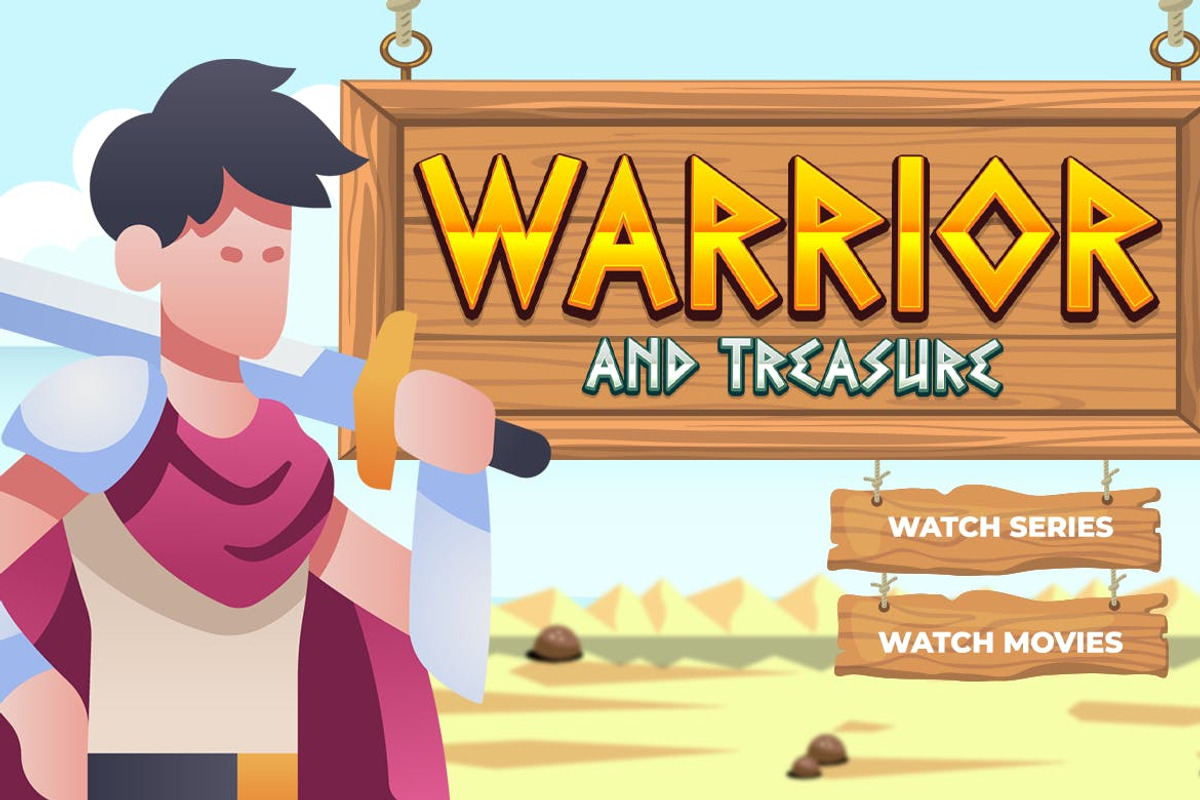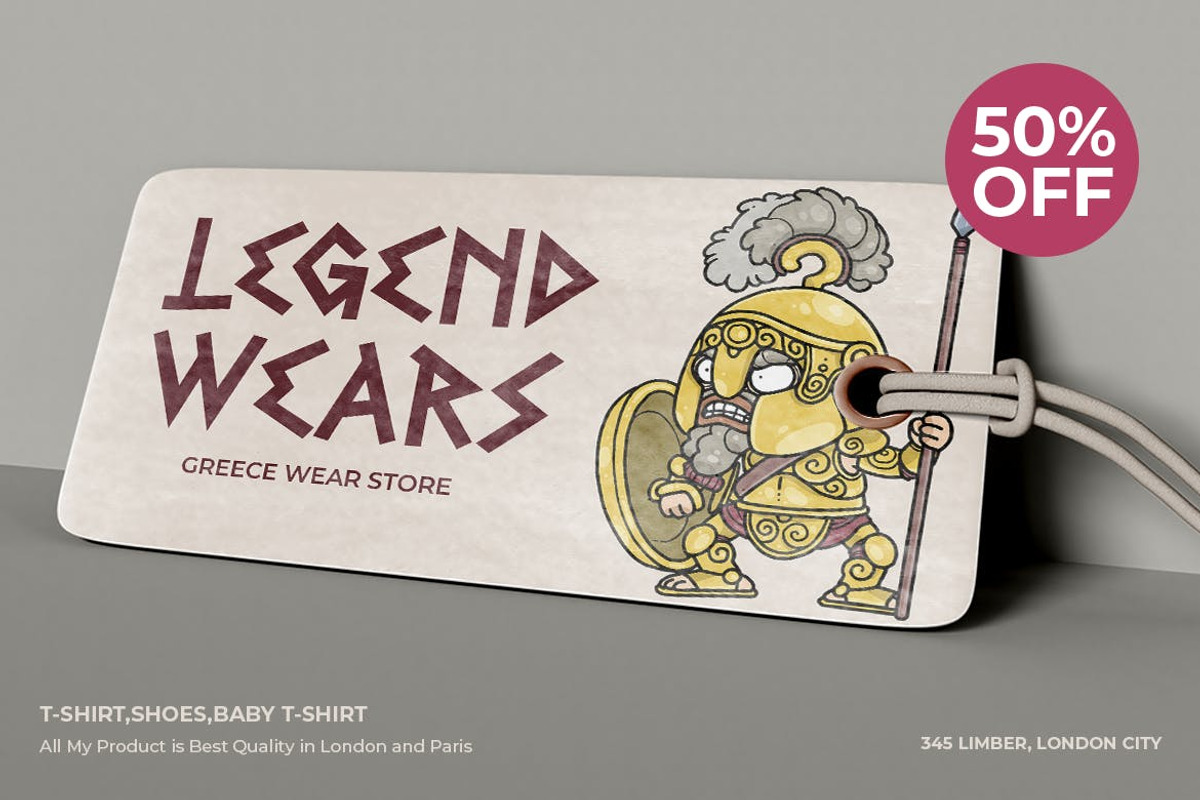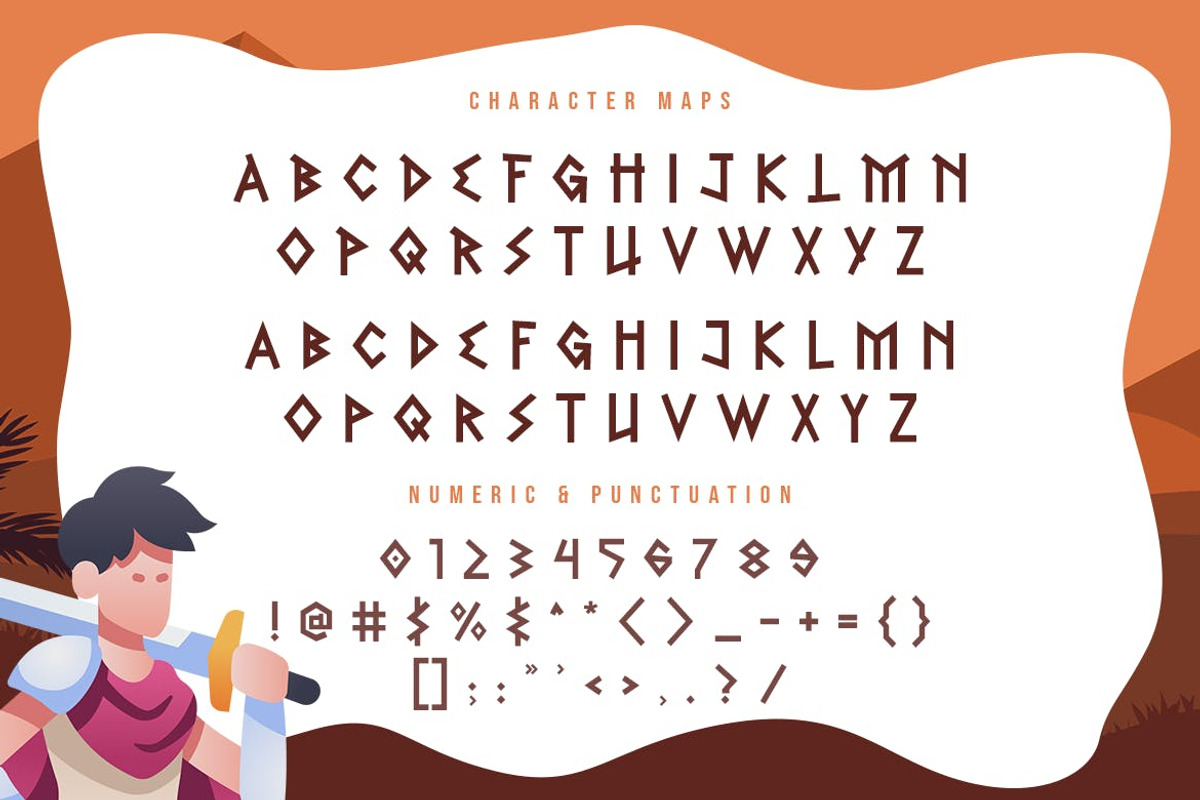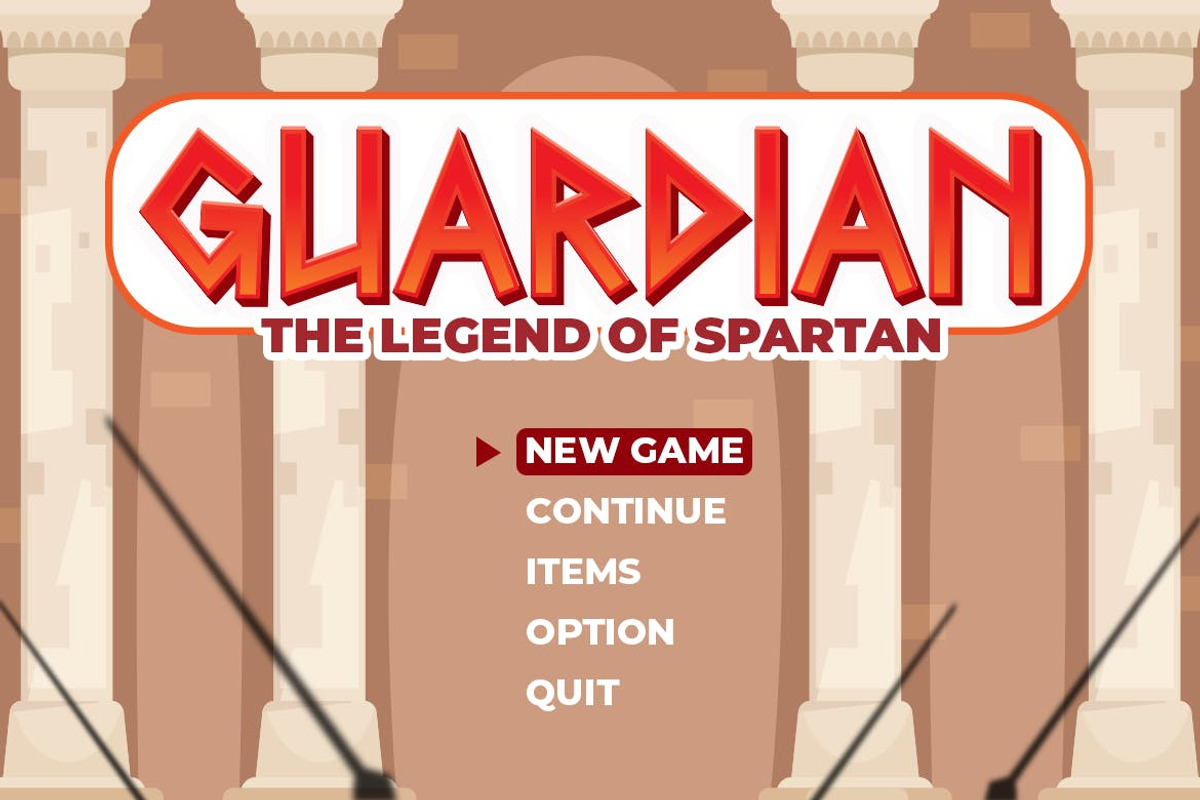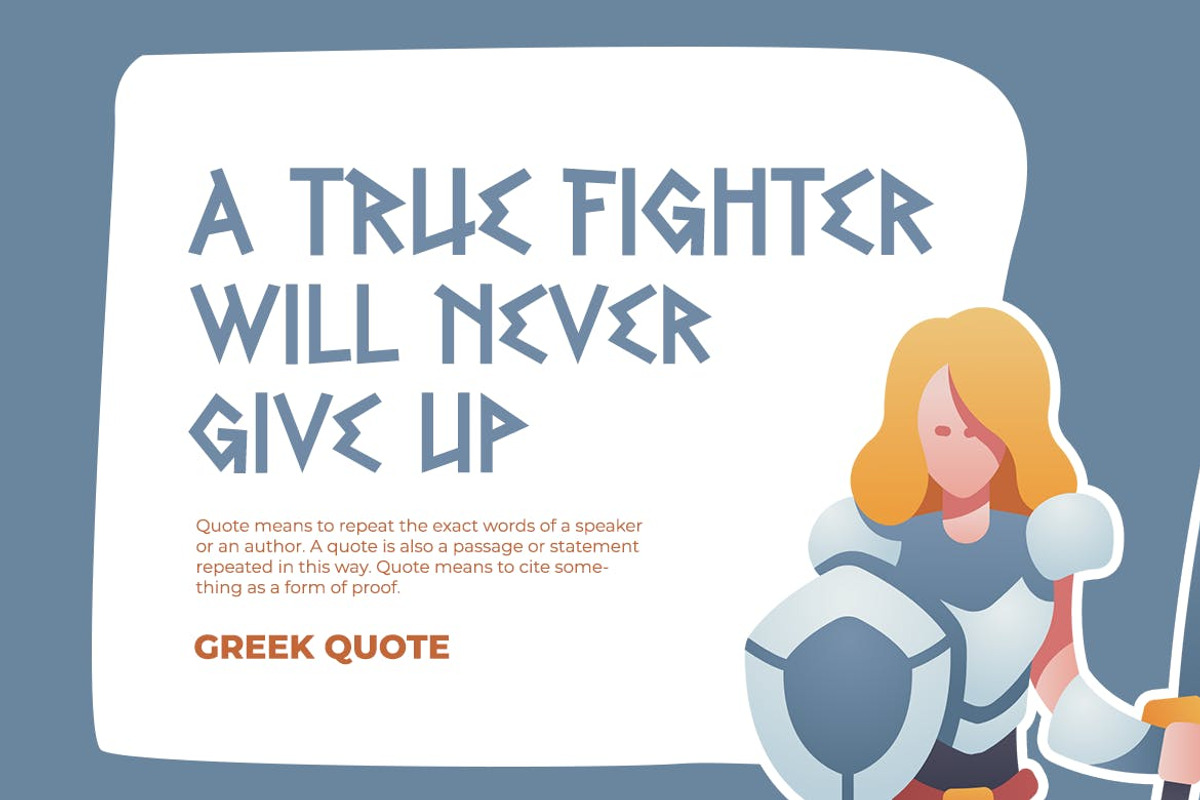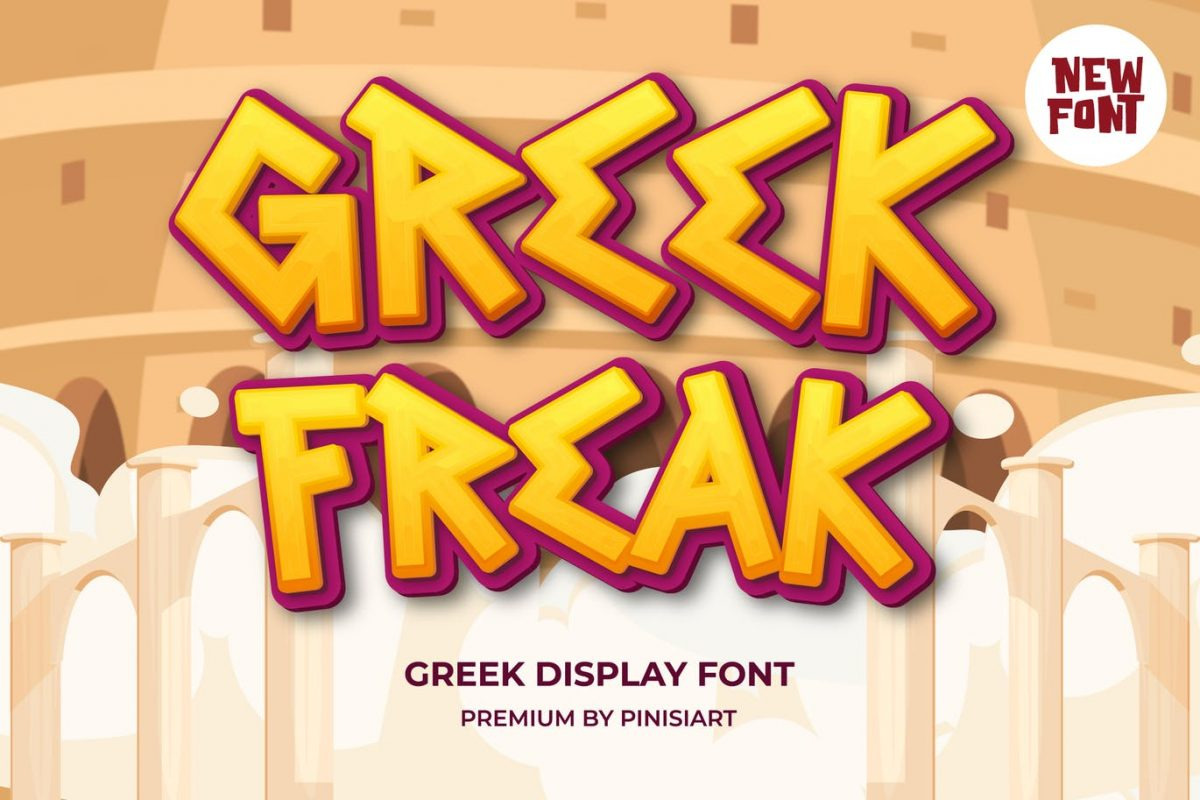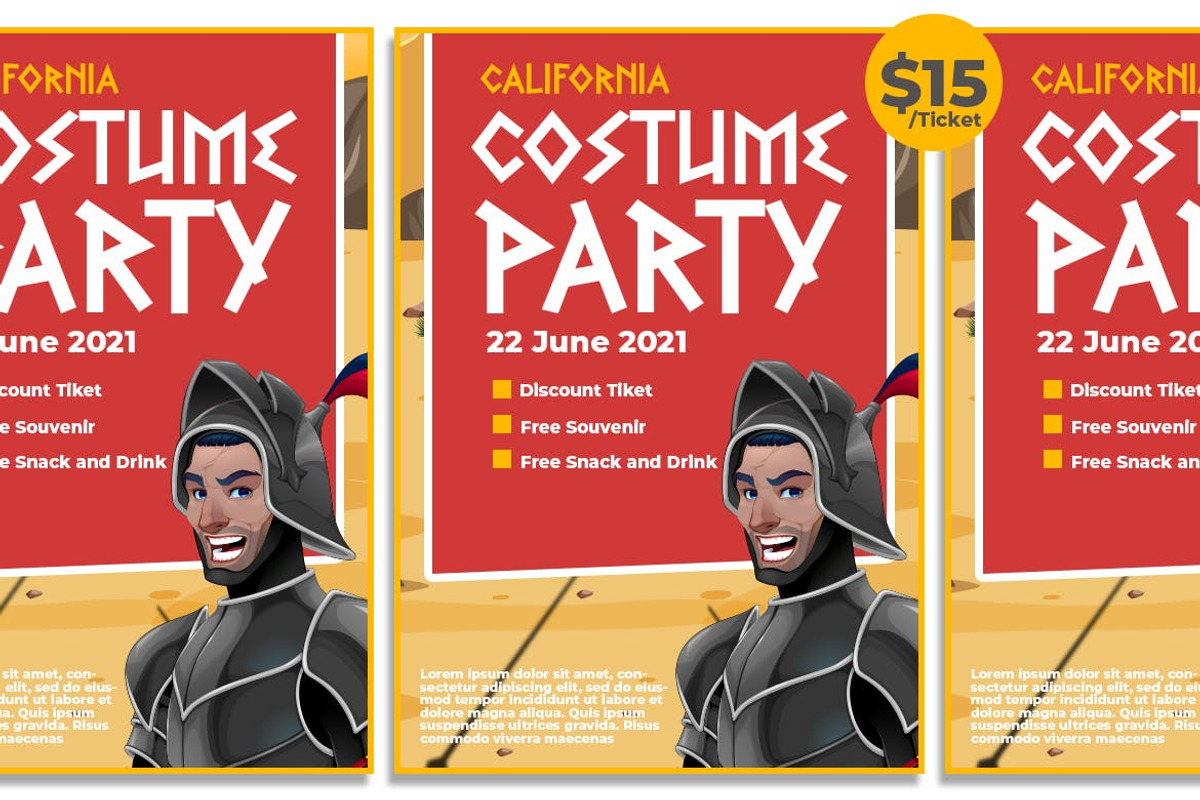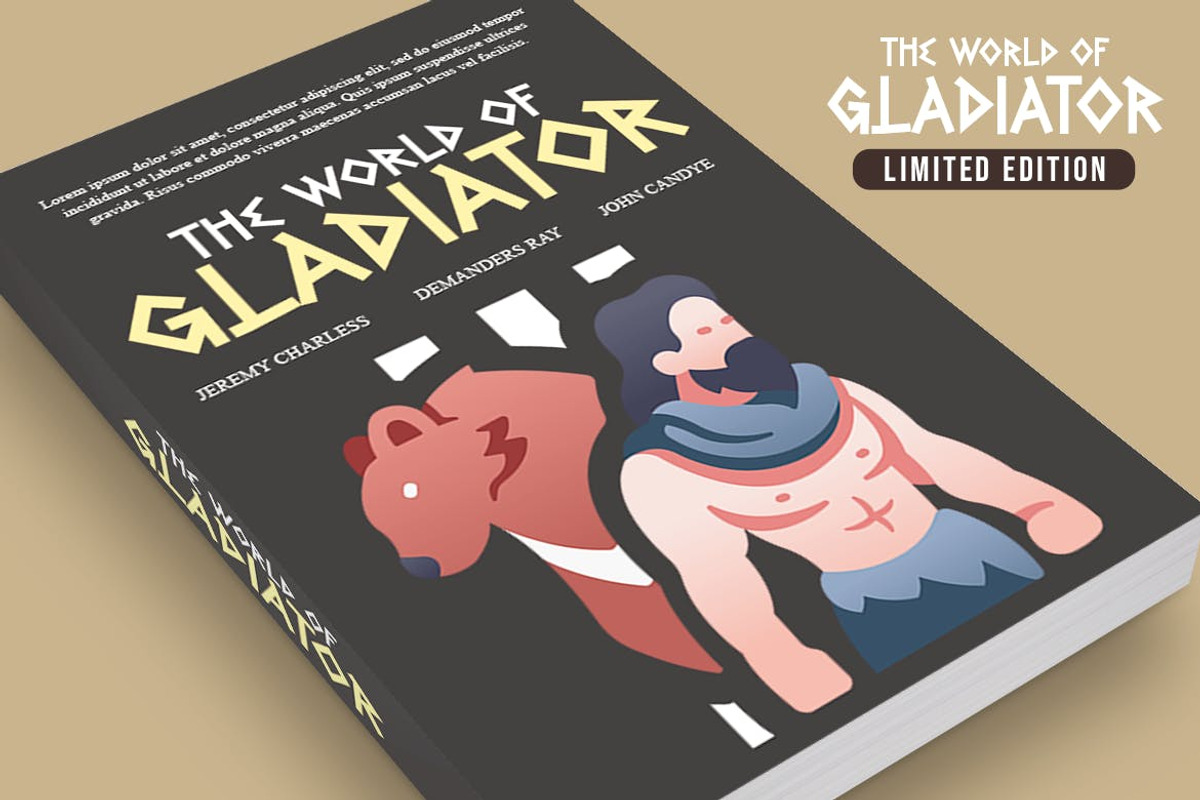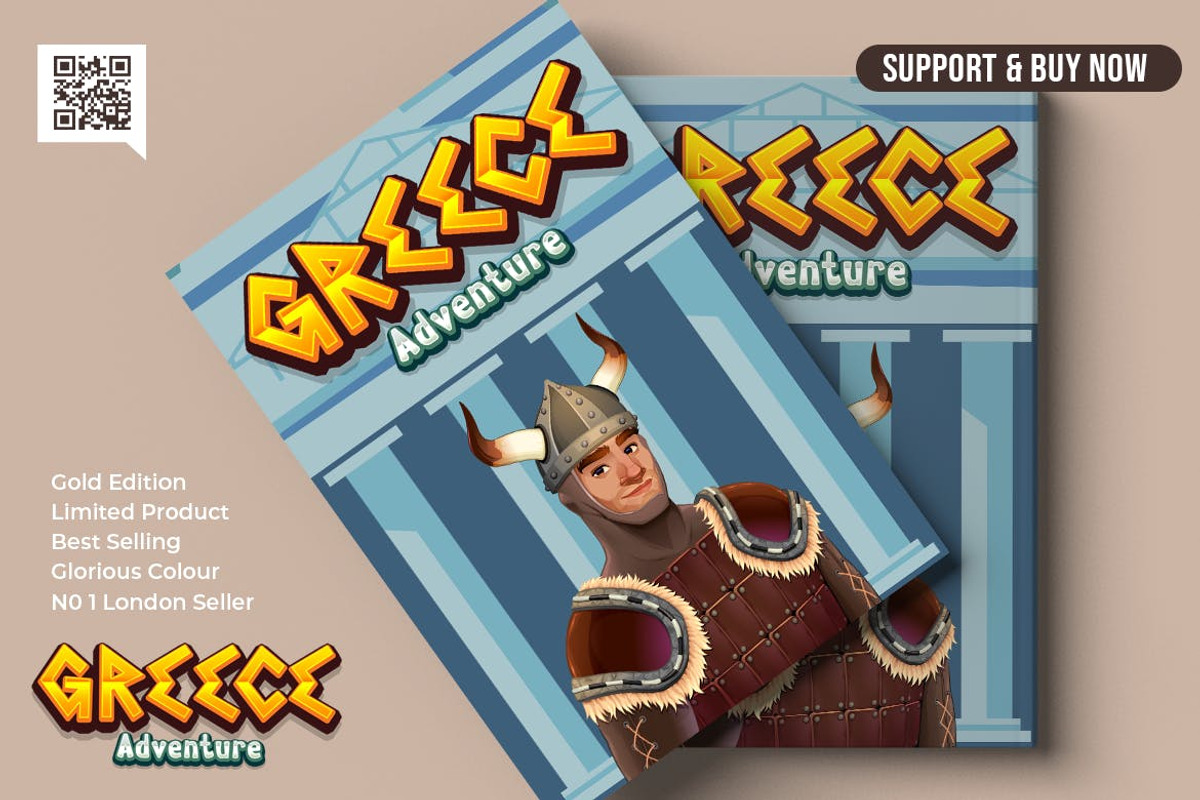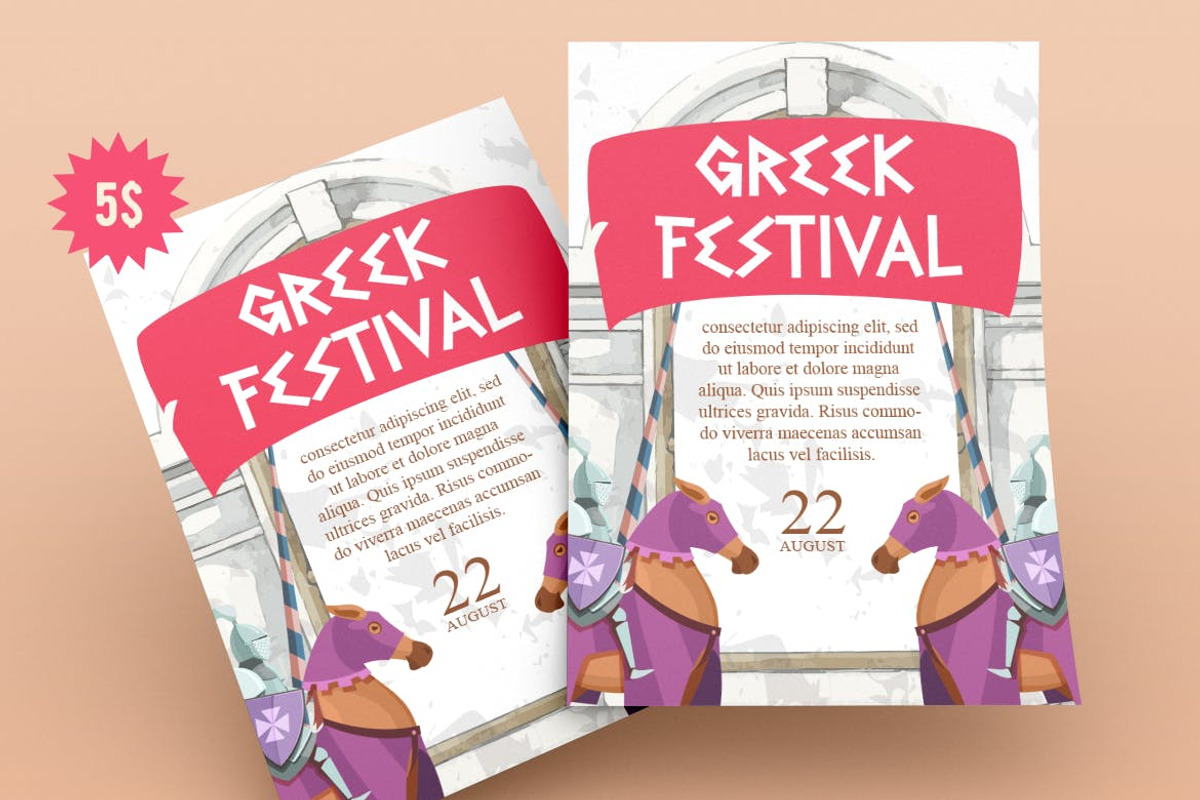
Greek Freak – Gaming Font
In the era of madness, Greek Freak will bring the mythology and all that epic god vs human war to the present day. The gladiators, the battle of praetorians, the castle siege, all of that… will be brought to life with this font.
Suit perfectly for History books market, online games, stationary, school supplies font, poster, movie title, youtube covers, youtube thumbnails, social media page covers, and so on…